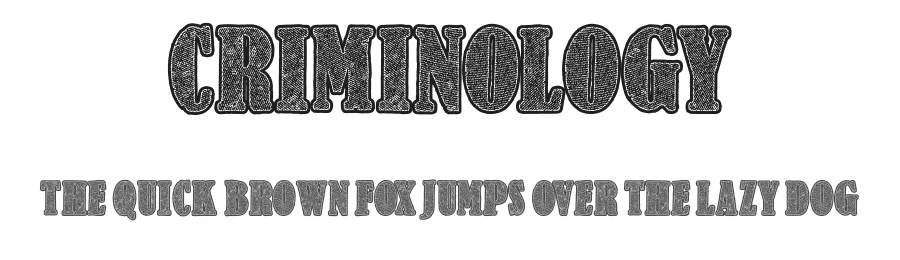
About Science City Font
Science City
Science City Specifications
Science City Font is a decorative font that shines as a display or heading face. Pair it with a clean sans-serif or serif font for body text β the contrast creates a clear hierarchy while the two styles stay balanced and easy to read.